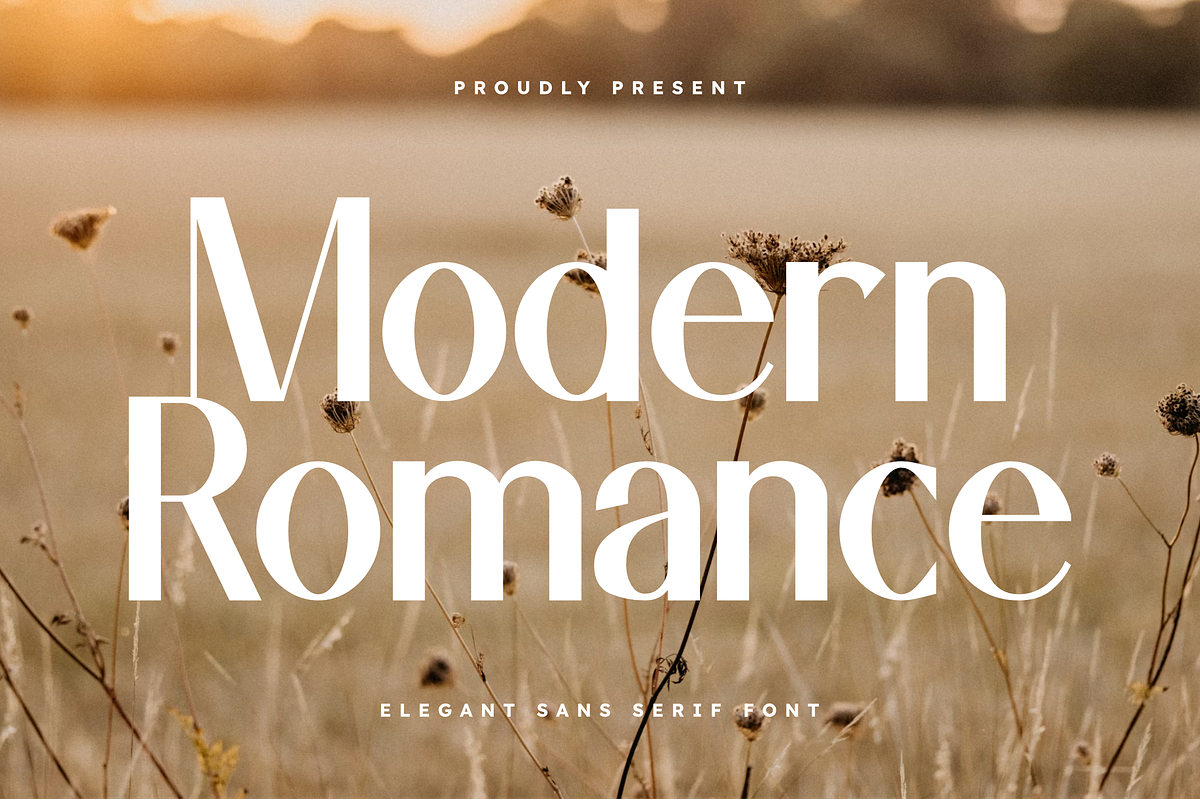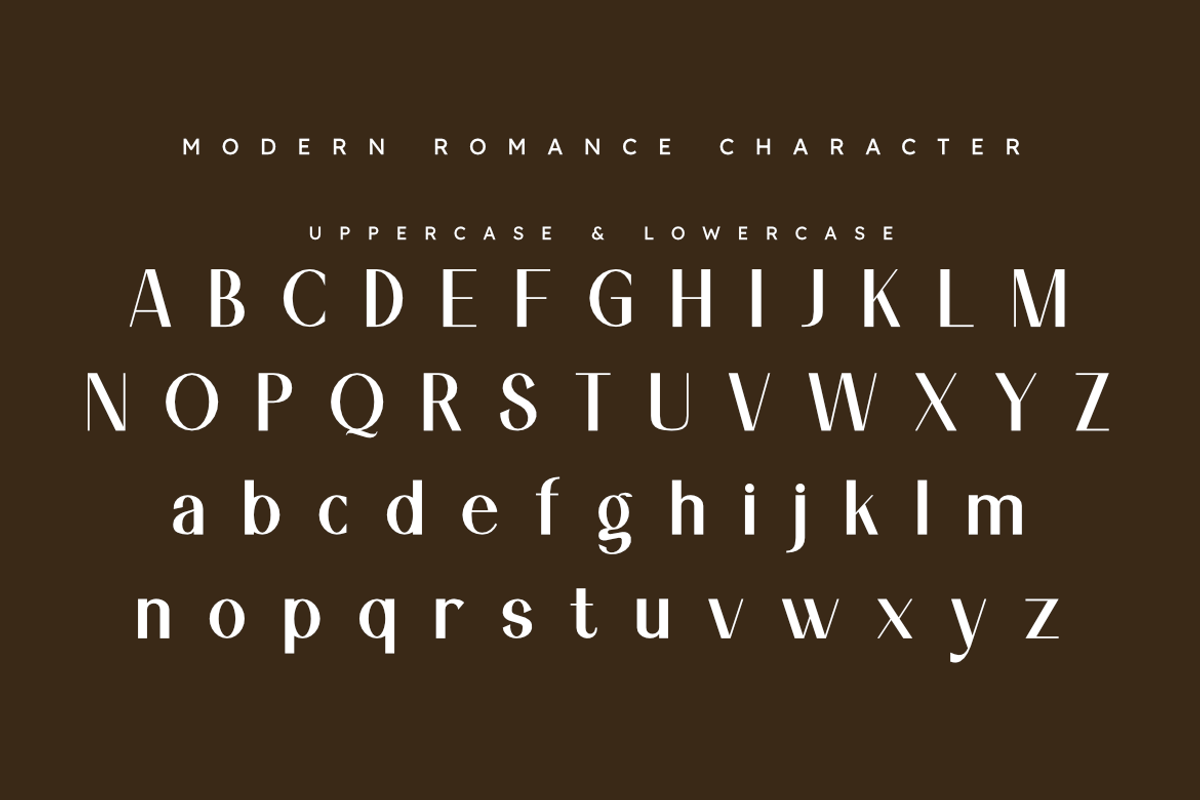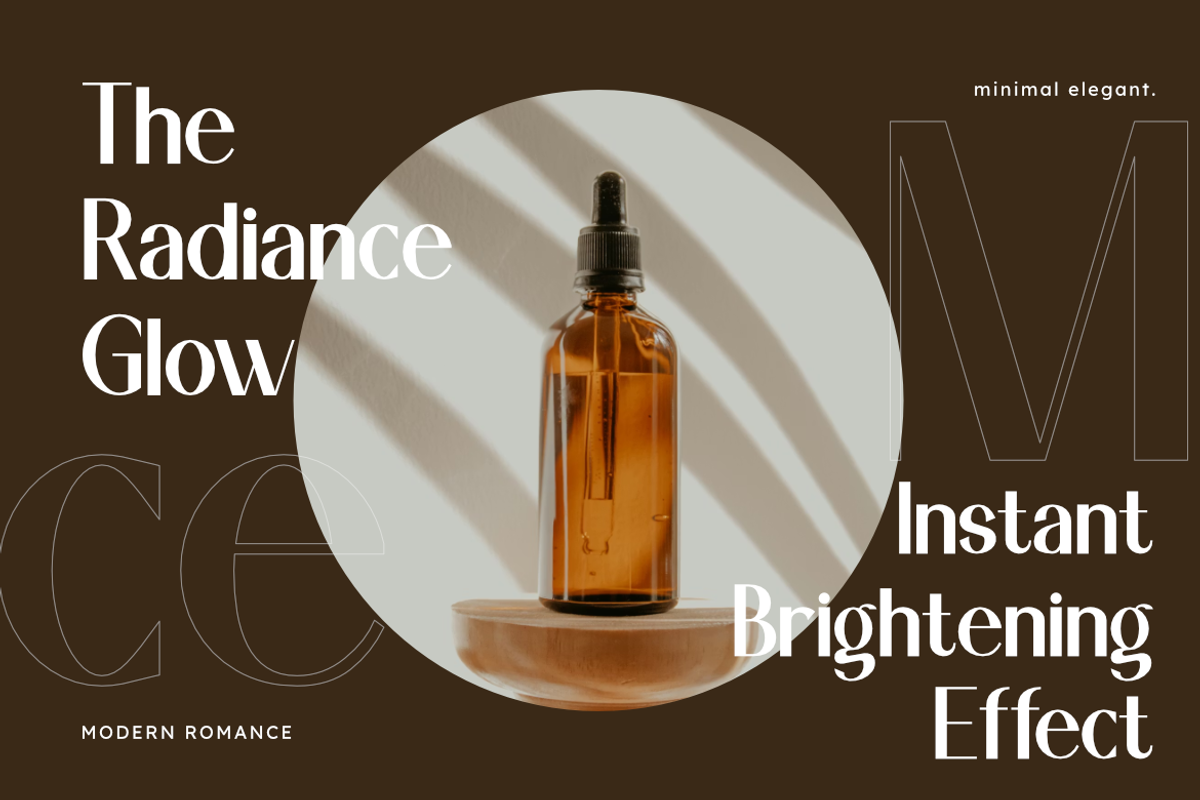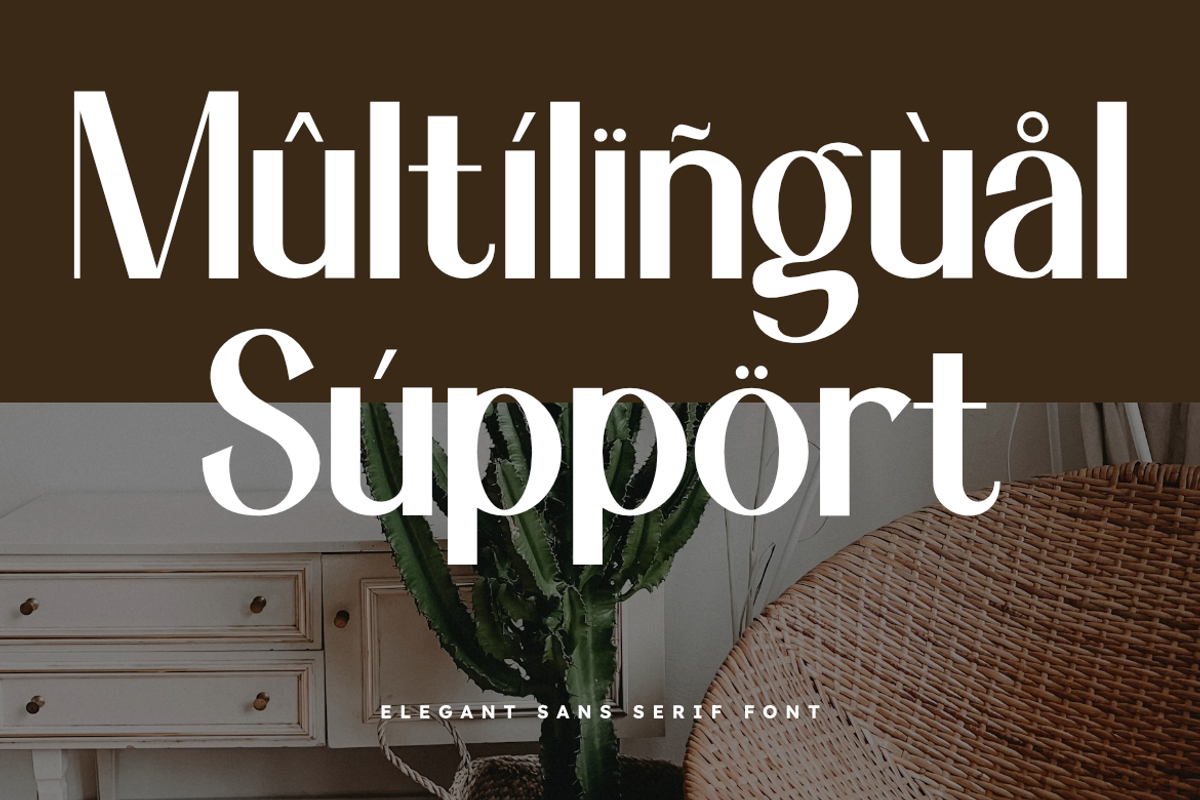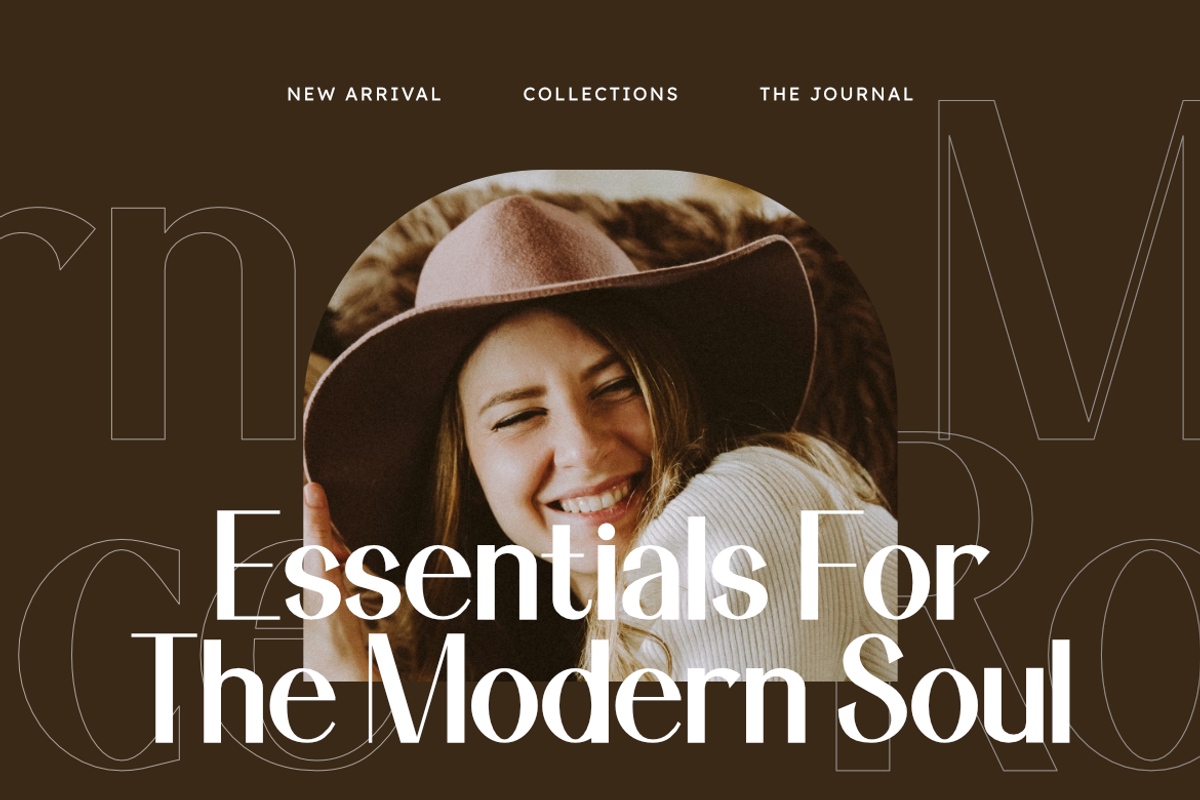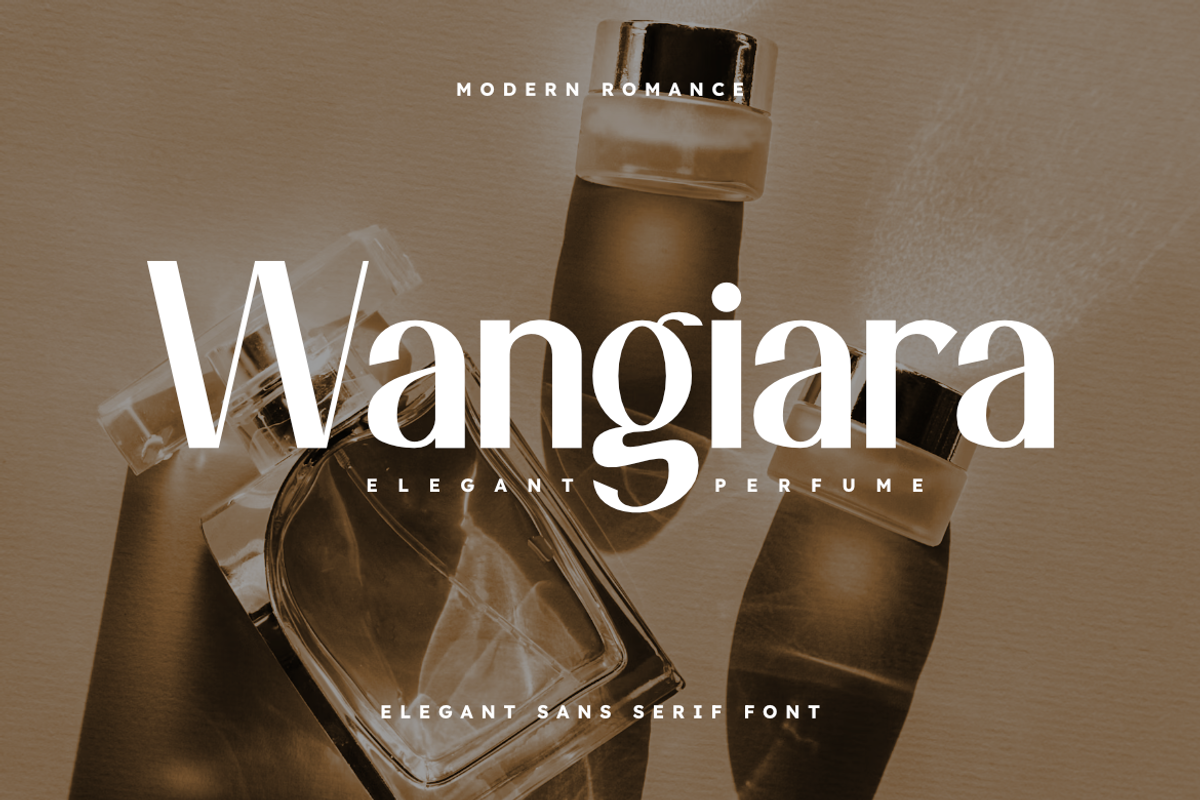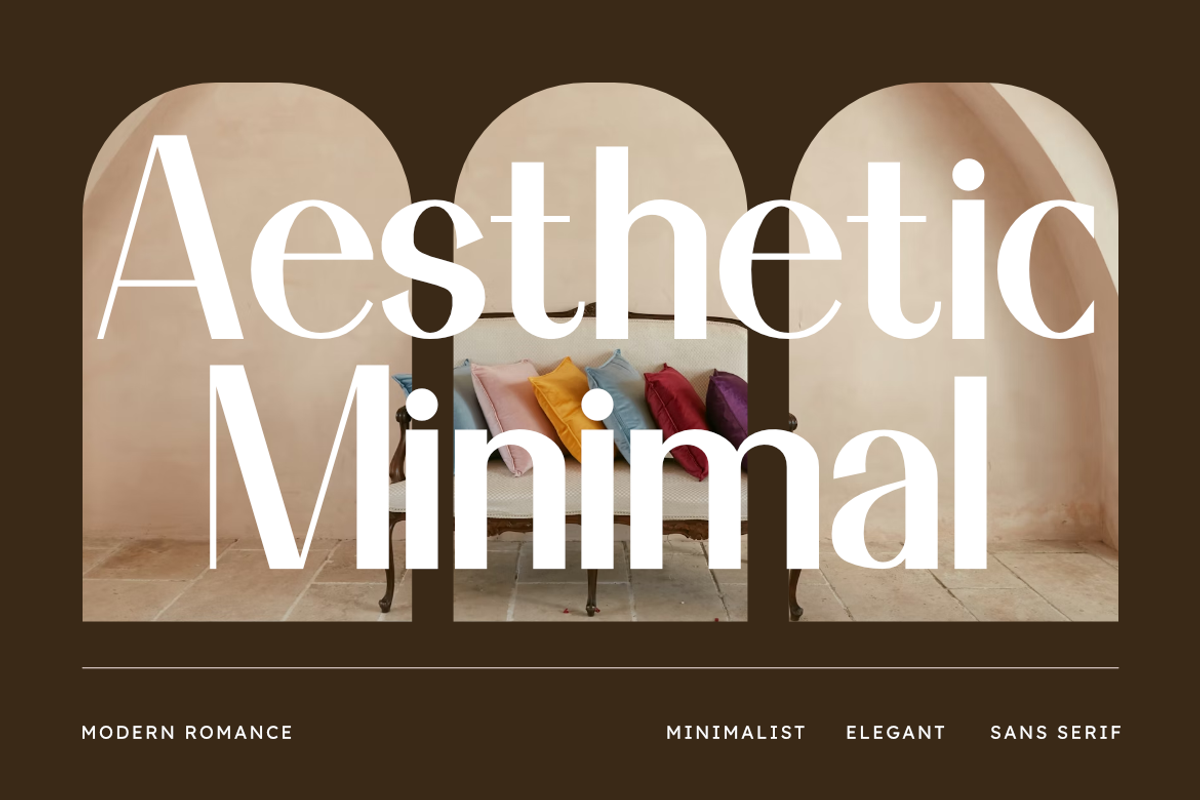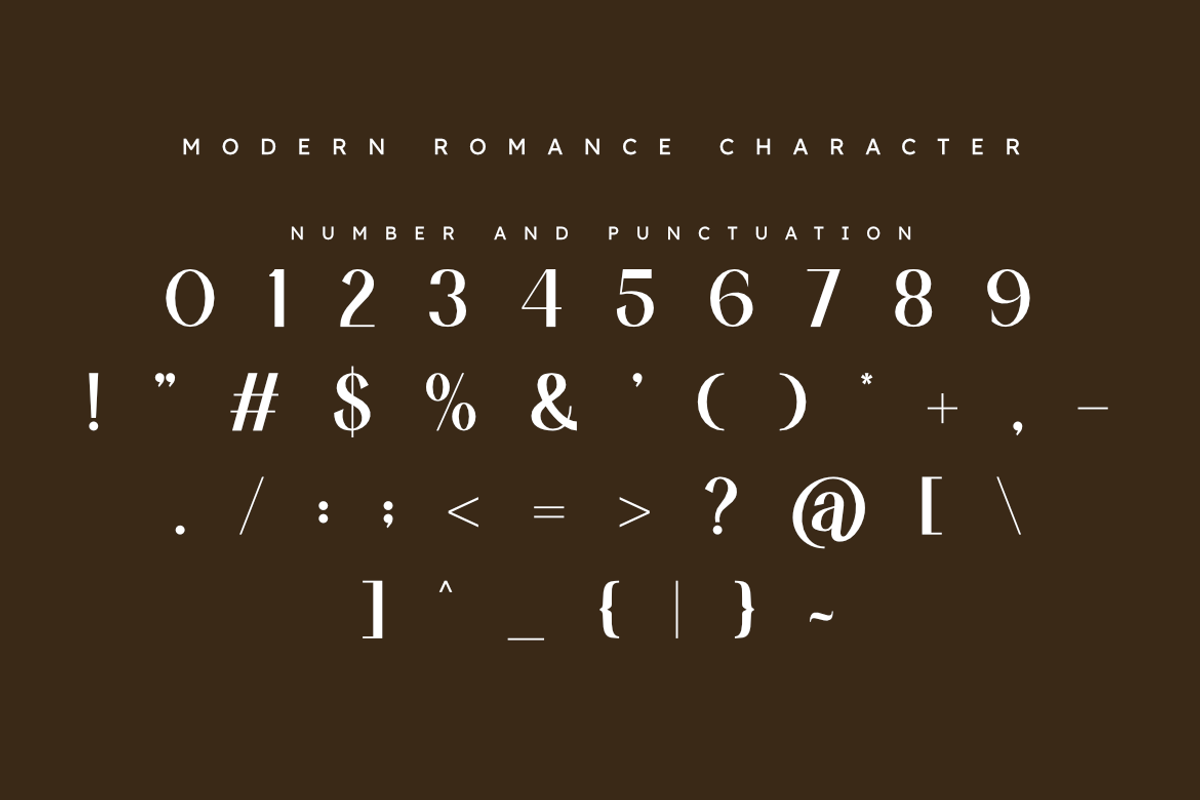
Modern Romance | Elegant Luxury Sans
Elevate your aesthetic with Modern Romance, a stunning elegant sans serif from Masyafi Studio. Inspired by the world of haute couture and modern editorial design, Modern Romance captures a timeless elegance that feels both fresh and sophisticated.
This font is more than just a typeface; it’s a statement piece. Its graceful lines and subtle curves make it an ideal choice for designers looking to create a high-end feel without the weight of a traditional serif. It’s the perfect companion for luxury branding, lifestyle blogs, boutique packaging, and romantic stationery.
The Perfect Fit For: Logo Design & Branding: Create a memorable, upscale brand image. Editorial Layouts: Add a touch of "Vogue-style" sophistication to headlines. Wedding & Event Stationery: Perfect for modern, minimalist invitations. Social Media: Stand out with clean, aesthetic quotes and story layouts.